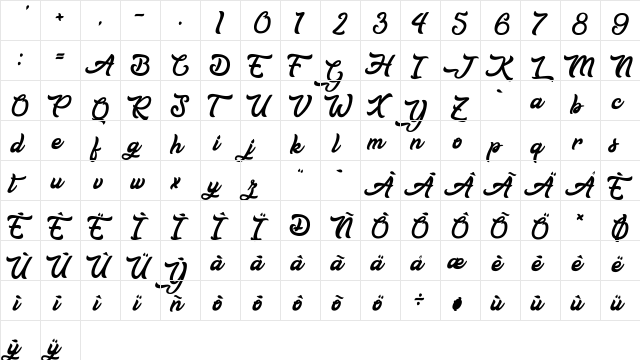
Rainmaker in the Shadow Regular
| Foundry | Octotype |
| Designer | Octotype |
Design Context for Rainmaker in the Shadow Typeface
Rainmaker in the Shadow brings ornamental detail and strong personality to headlines and identities, where visual impact matters more than quiet functionality.
Font Pairing: Pair with a clean neutral sans-serif for body copy to let Rainmaker in the Shadow's character lead without overwhelming the composition.
Pro Tip: Use Rainmaker in the Shadow exclusively at display sizes — it was designed to be seen, not read at length. Let a neutral companion handle body copy.